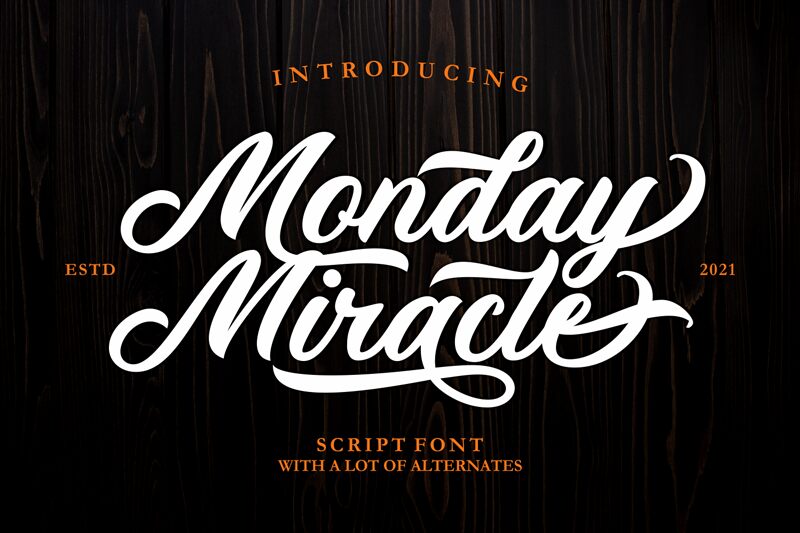
Monday-Miracle-Alternate
Monday-Miracle-Alternate is a stunning calligraphy font designed by Letternun. Its semi-light weight adds a touch of elegance to any project, making it perfect for wedding invitations, greeting cards, and other formal occasions. This font's unique style is also suitable for branding materials such as logos, packaging designs or even book covers. With its intricate strokes and graceful curves, Monday-Miracle-Alternate will make your text stand out in a sophisticated way. Try it out today and watch your text come alive with this beautiful semi-light calligraphy font!